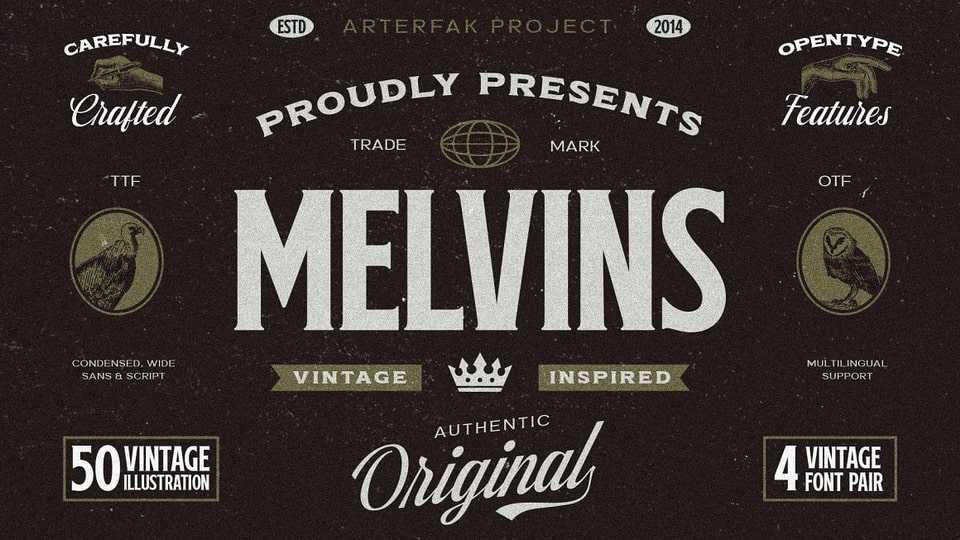
Download Melvins font, a serif typeface inspired by a vintage design. Melvins font is carefully designed with high attention to give a feel of vintage, old-school, and classic.